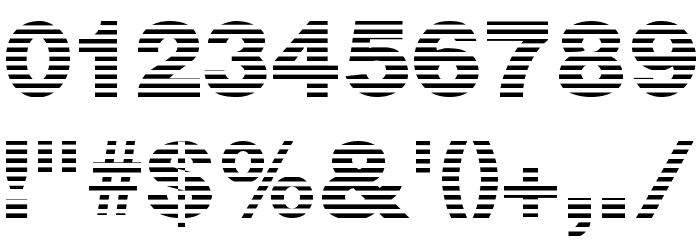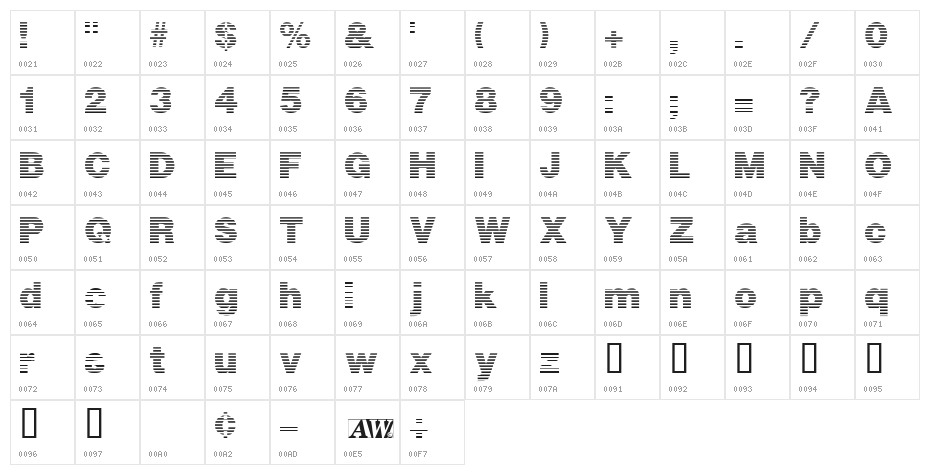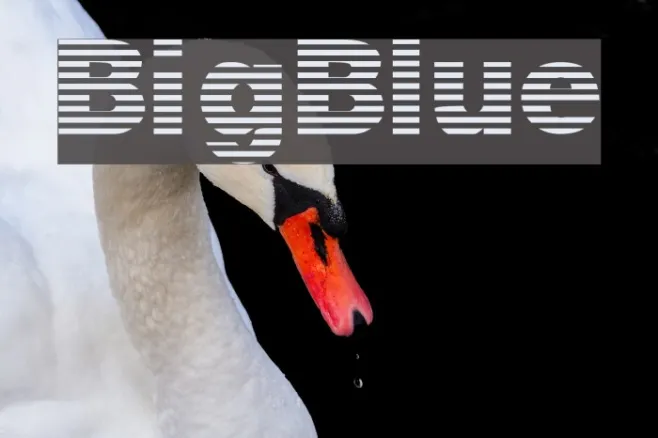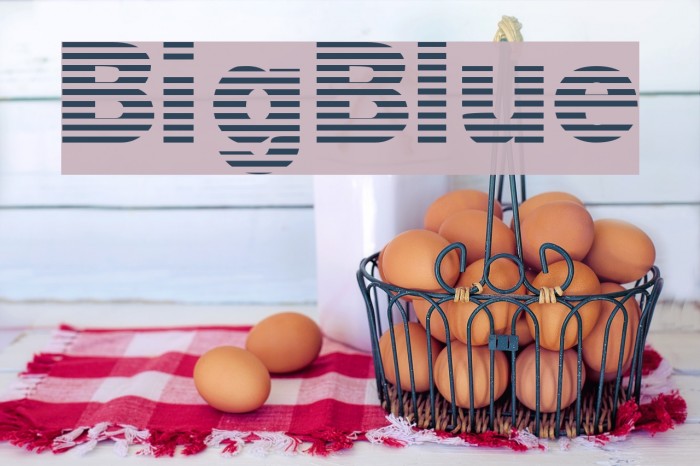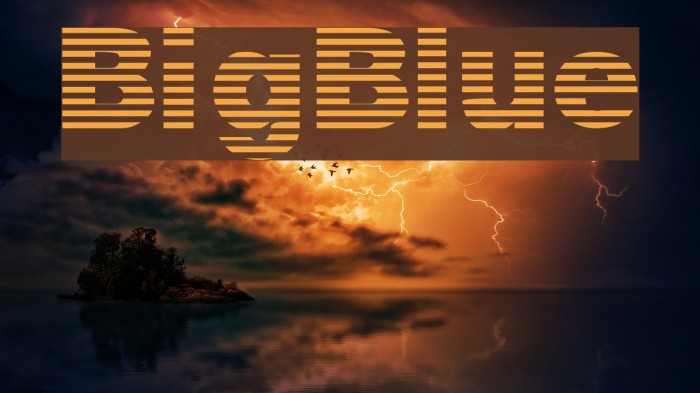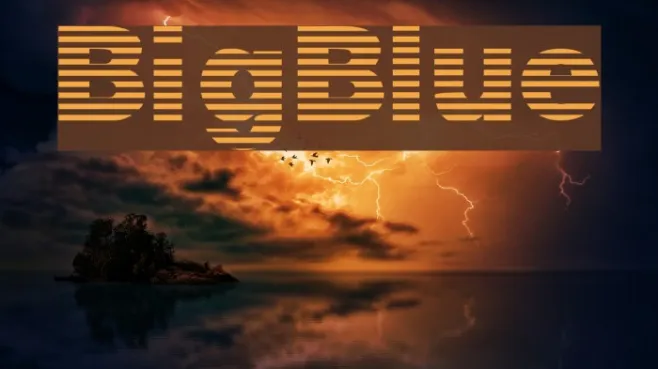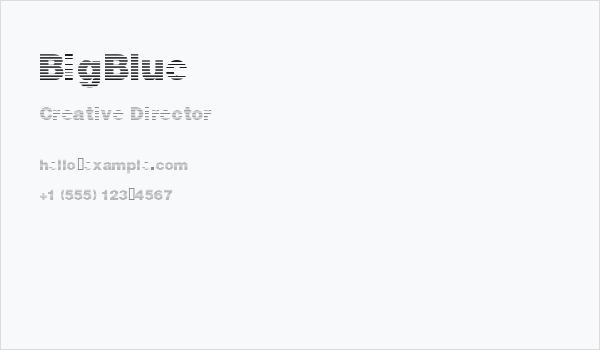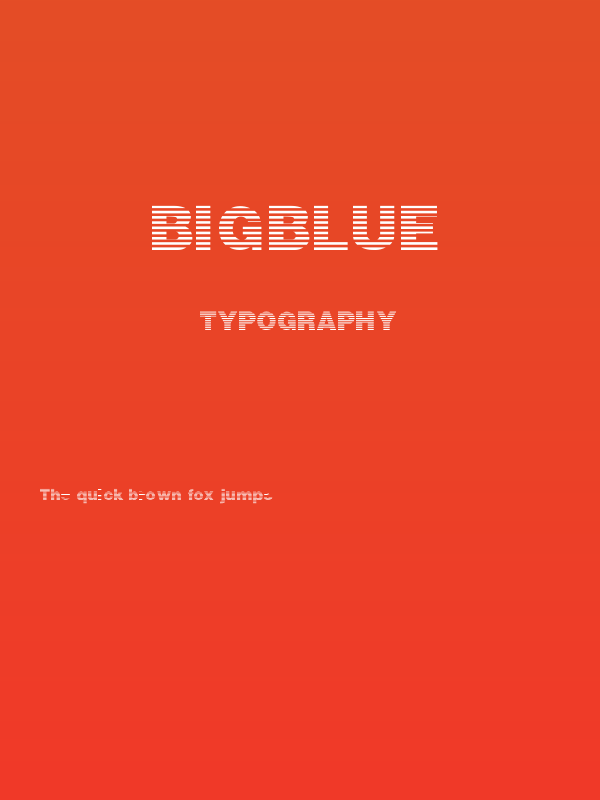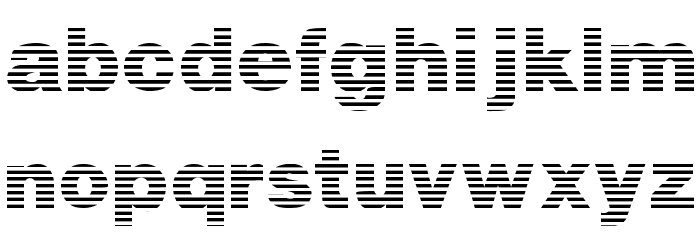
BigBlue Font
BigBlue Description
This font features a bold, modern design with a unique striped pattern running horizontally through each character. The uppercase and lowercase letters, as well as numbers and special characters, are all constructed with a consistent width and spacing, giving the font a cohesive and structured appearance. The stripes create a dynamic visual effect, making it ideal for eye-catching designs. The font's geometric shapes and clean lines contribute to its contemporary style, while the striped pattern adds an element of playfulness and creativity.